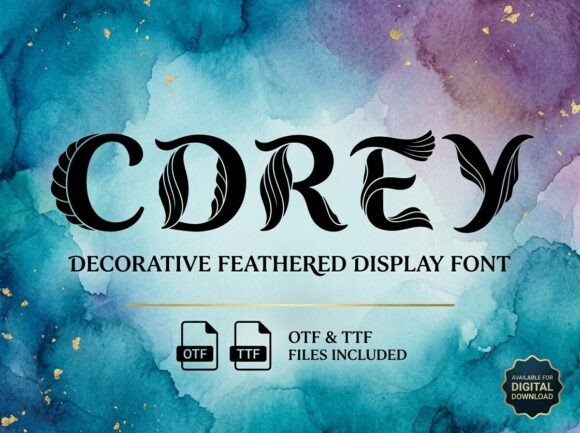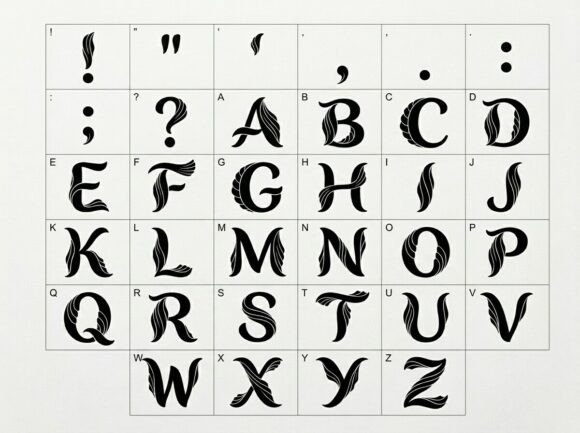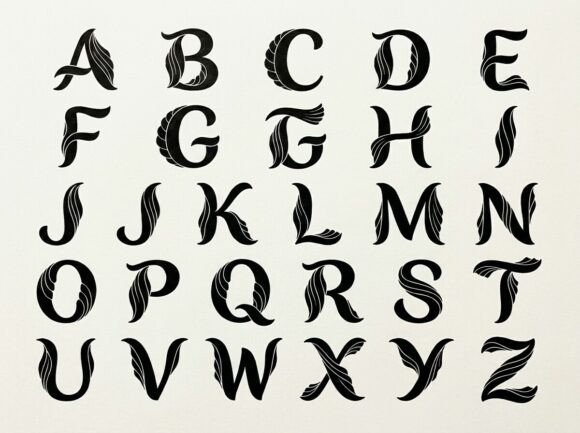
Introducing Corey: The Regal Font that Commands Royal Attention
In the world of typography, few fonts can evoke the sense of luxury and sophistication that Corey effortlessly commands. This premium decorative font is a masterful blend of classical serif structure and exquisite organic plume motifs, making it the perfect choice for designers and crafters seeking to add a touch of majestic prestige to their projects.
The Inspiration Behind Corey
Corey’s design is rooted in the perfect balance between stately structural stems and soft, nature-inspired plumes. Each character is artfully adorned with dramatic, sweeping feathers and delicate, budding flourishes, creating a visual narrative that exudes luxury and artisanal grace. The high-contrast letterforms are a testament to the font’s classical serif heritage, while the organic plume motifs add a touch of whimsy and elegance.
Design Features of Corey
One of the standout features of Corey is its unique blend of structural and organic elements. The font’s high-contrast letterforms are characterized by:
- Dramatic, sweeping feathers: Each character features bold, sweeping feathers that add a touch of drama and flair to any design.
- Delicate, budding flourishes: The font’s flourishes are delicate and intricate, adding a touch of whimsy and elegance to each character.
- High-contrast letterforms: The font’s letterforms are designed with high contrast in mind, creating a sense of visual hierarchy and adding depth to any design.
Use Cases for Corey
Corey is an exceptional choice for a variety of design projects, including:
- High-end boutique branding: Corey’s luxurious feel makes it perfect for high-end boutique branding, adding a touch of sophistication and elegance to any brand identity.
- Bespoke stationery: The font’s unique blend of structural and organic elements makes it ideal for bespoke stationery, adding a touch of personality and whimsy to any design.
- Luxury product labels: Corey’s majestic feel makes it perfect for luxury product labels, adding a touch of prestige and sophistication to any product.
- Sophisticated editorial headers: The font’s elegant feel makes it ideal for sophisticated editorial headers, adding a touch of refinement and culture to any publication.
Why Choose Corey?
So why choose Corey for your next design project? Here are just a few reasons:
- Unique and elegant design: Corey’s unique blend of structural and organic elements makes it a standout font that will elevate any design.
- Versatile and adaptable: The font’s elegant feel makes it suitable for a wide range of design projects, from high-end branding to bespoke stationery.
- High-quality and precise: Corey is a premium font that is designed with precision and attention to detail, ensuring a high-quality finish for any design project.
In conclusion, Corey is a premium decorative font that is sure to command royal attention. Its unique blend of classical serif structure and exquisite organic plume motifs makes it the perfect choice for designers and crafters seeking to add a touch of luxury and sophistication to their projects. With its high-contrast letterforms, dramatic sweeping feathers, and delicate flourishes, Corey is an exceptional choice for high-end boutique branding, bespoke stationery, luxury product labels, and sophisticated editorial headers.
Get Ready to Elevate Your Designs with Corey